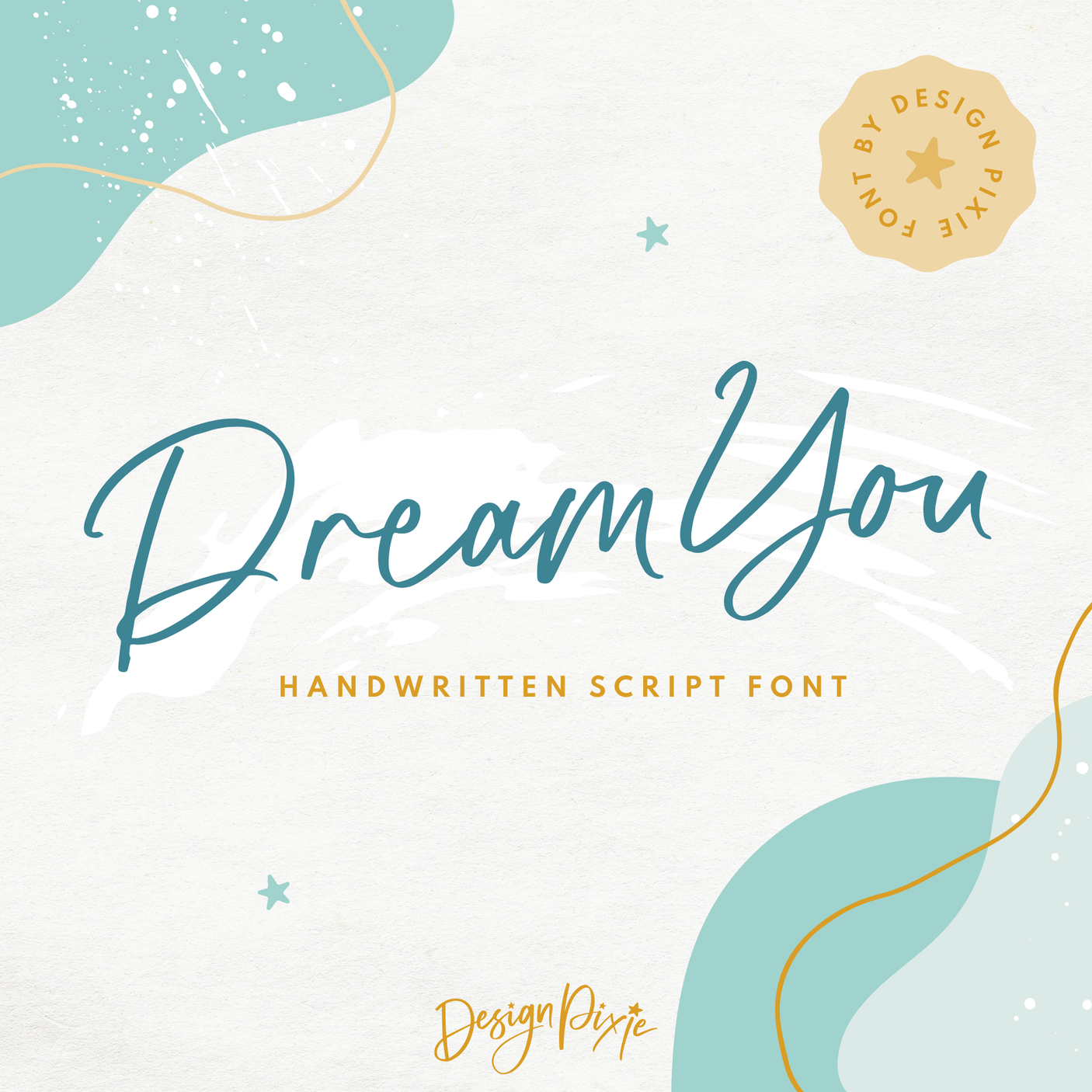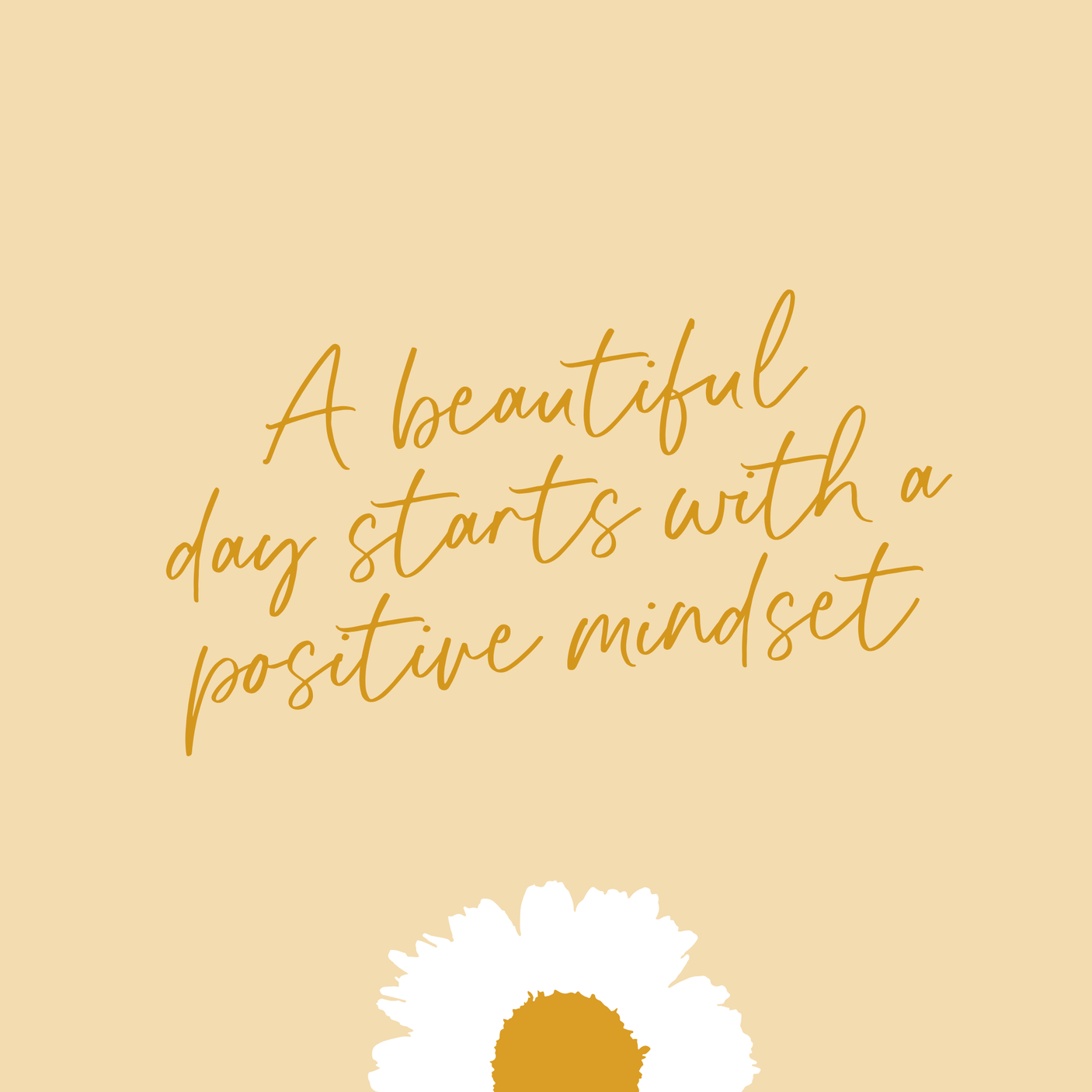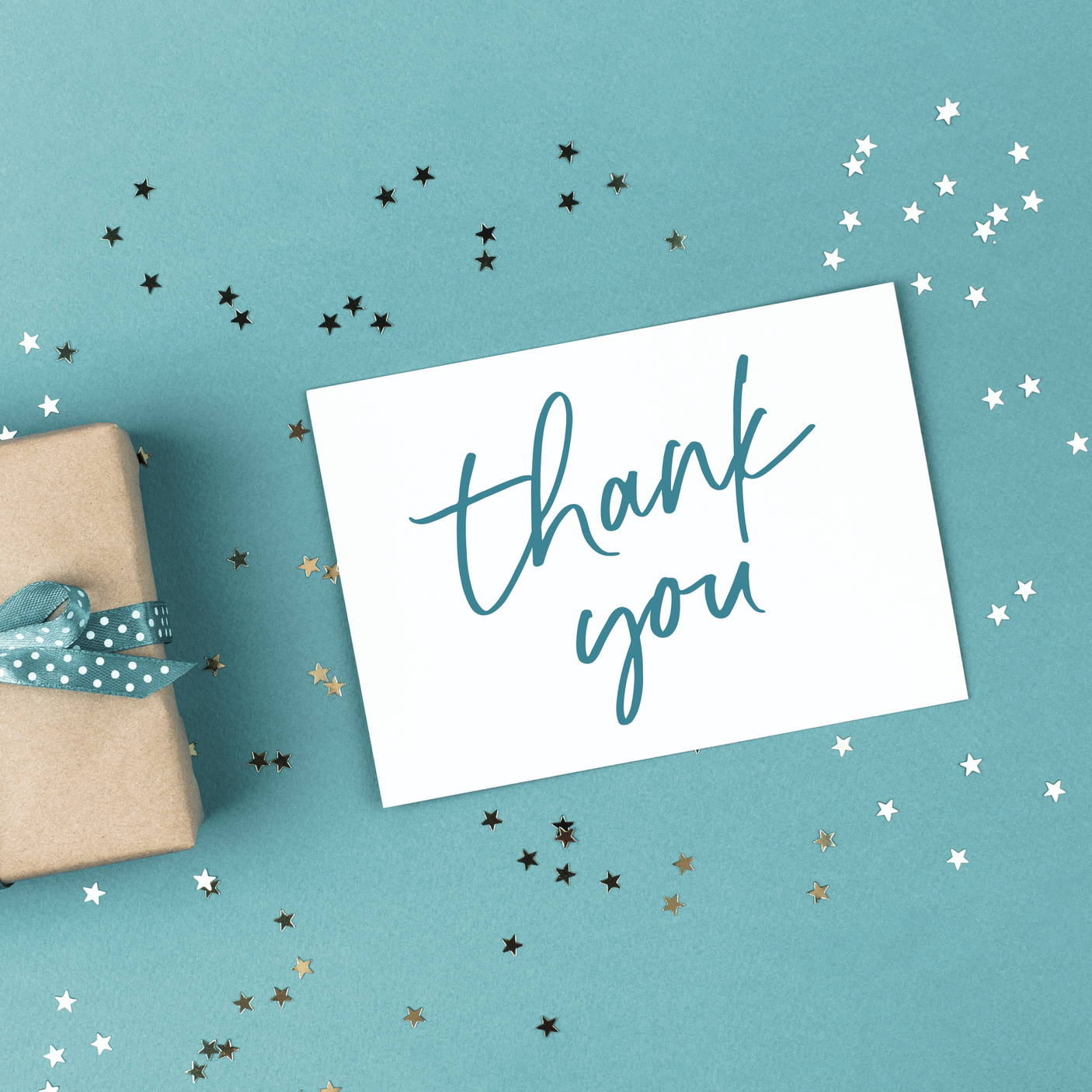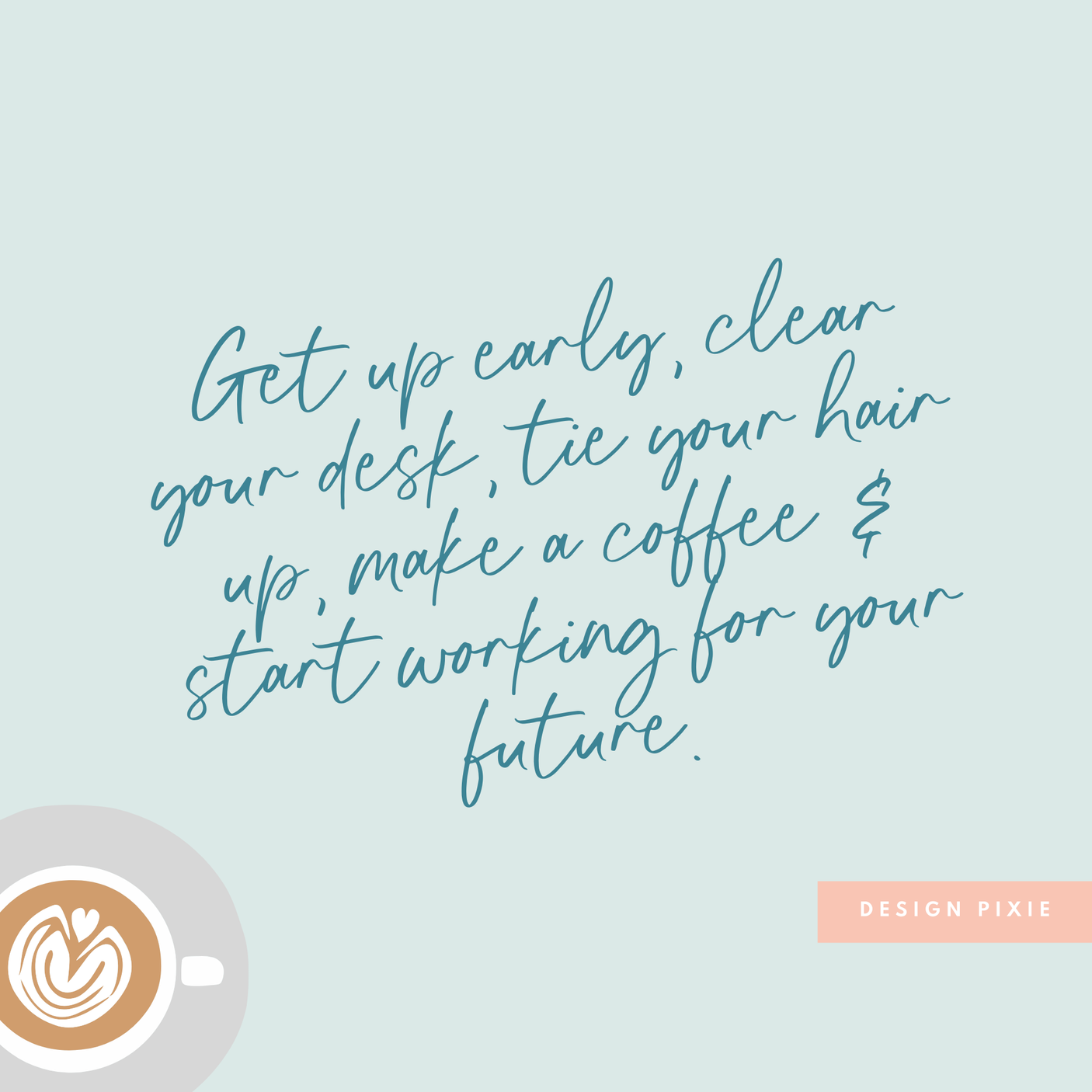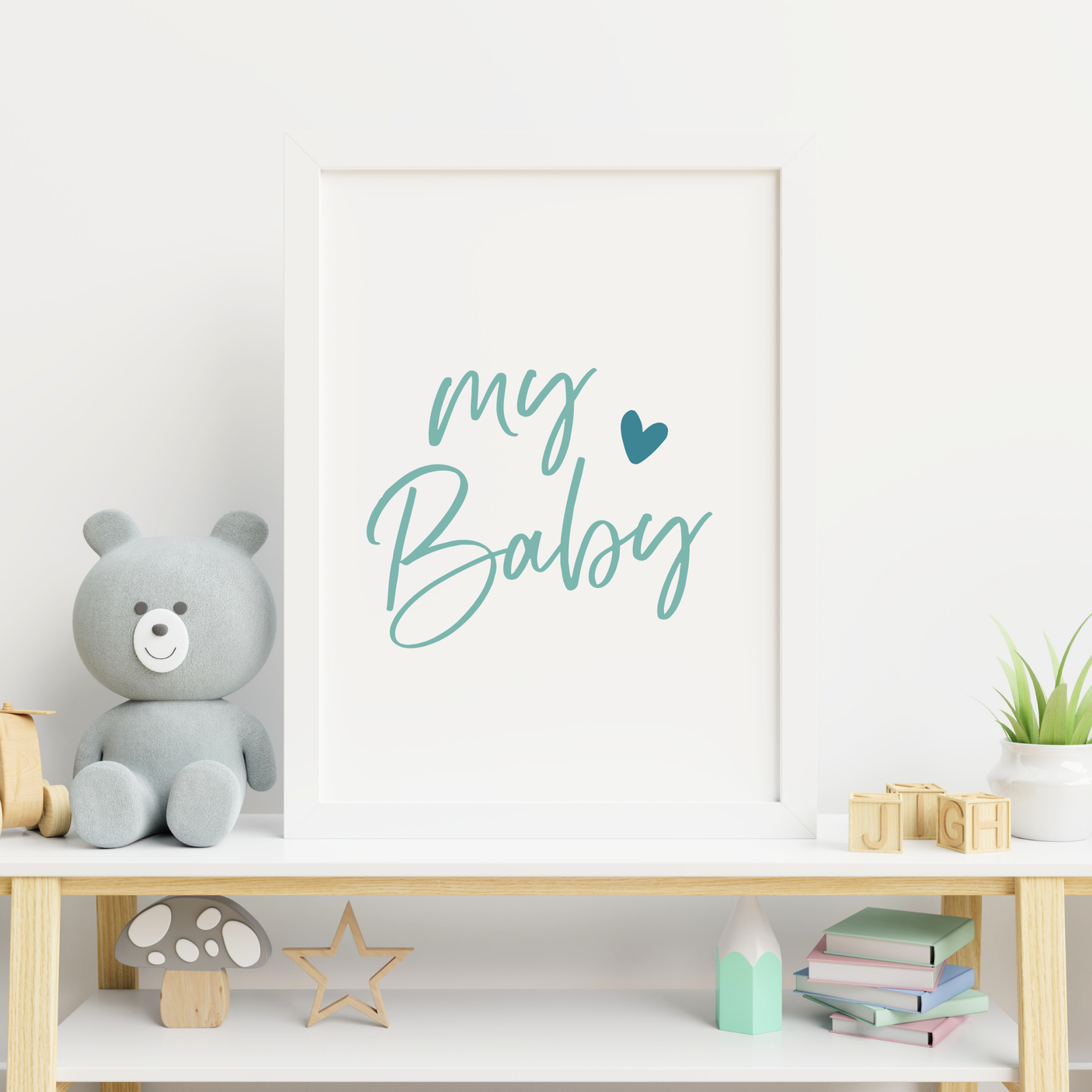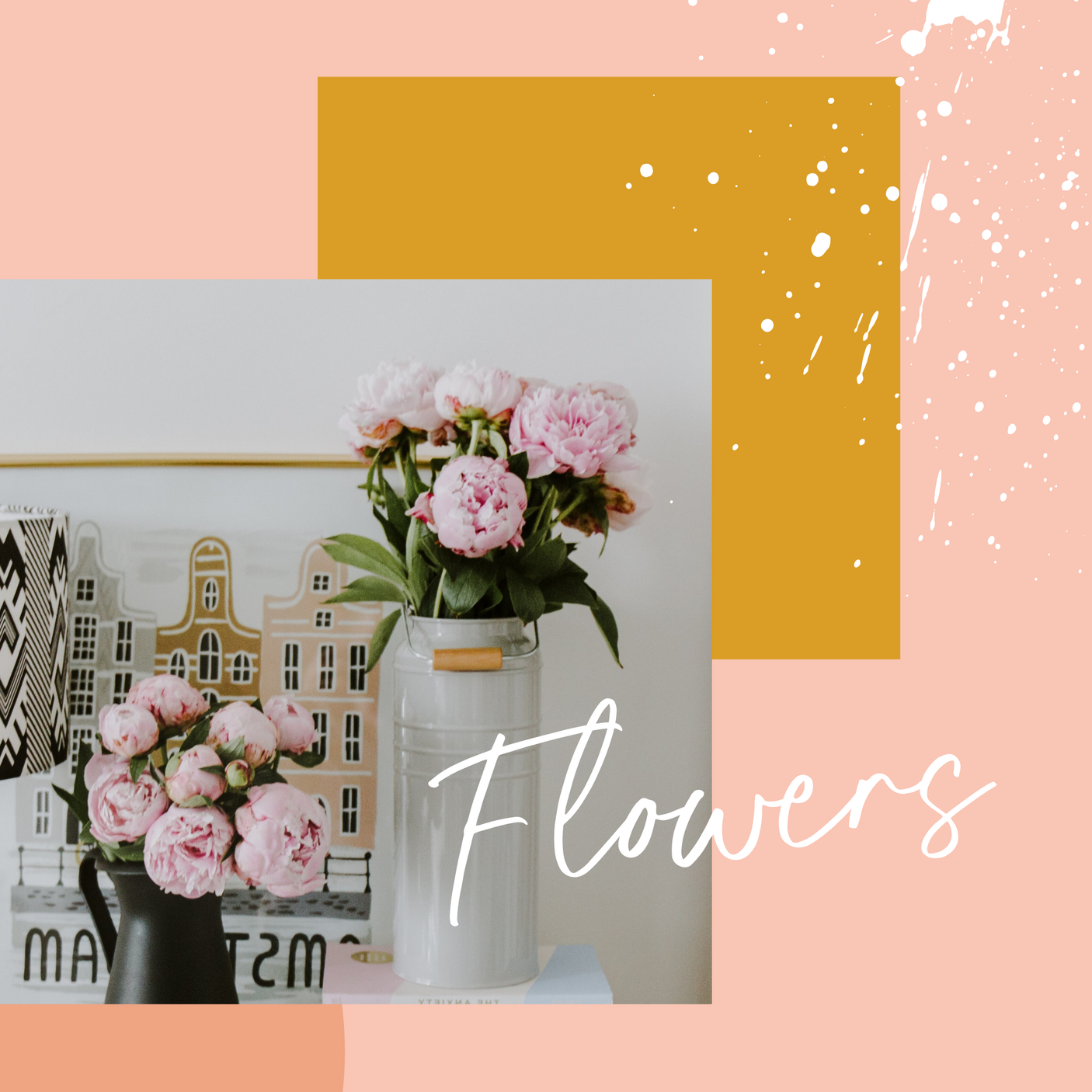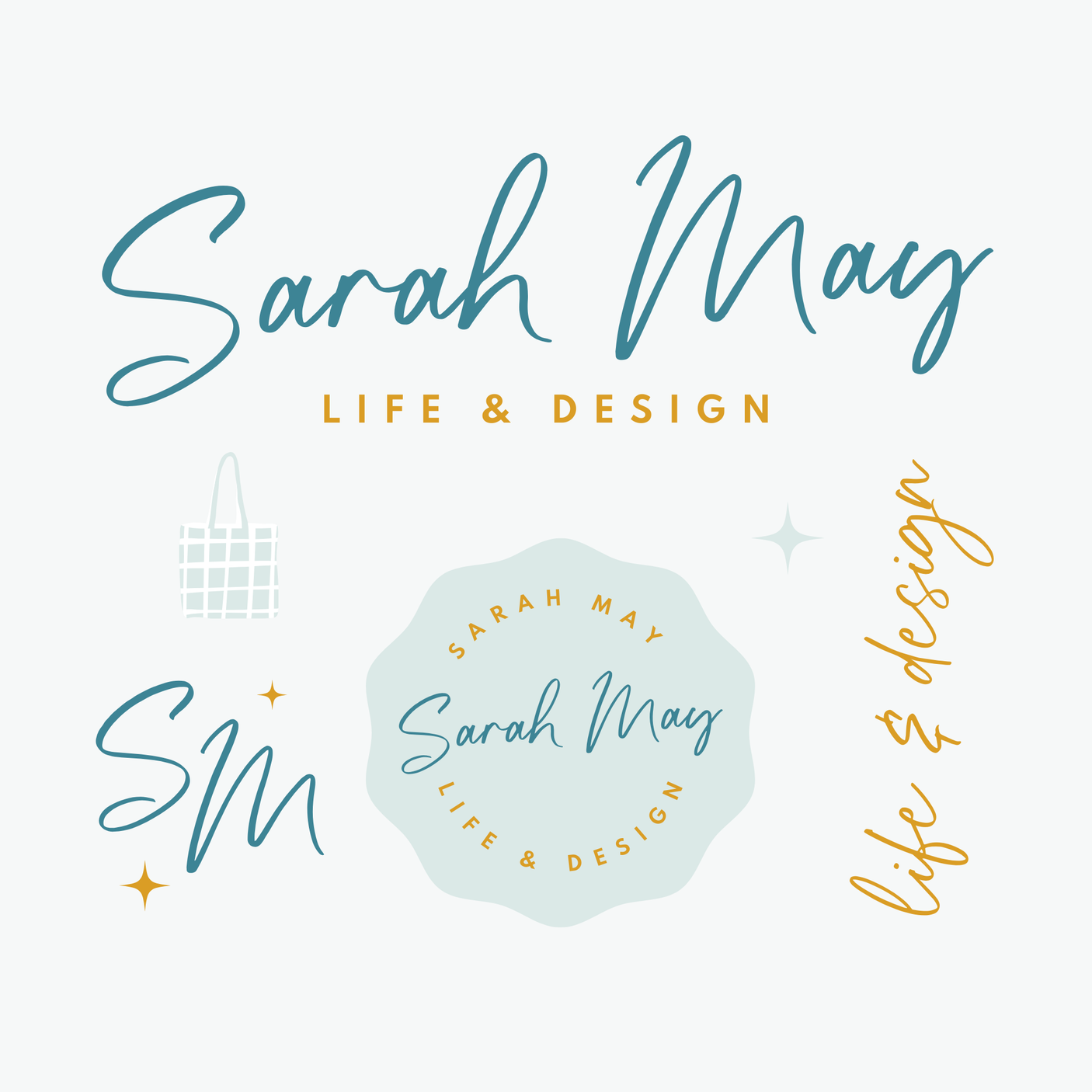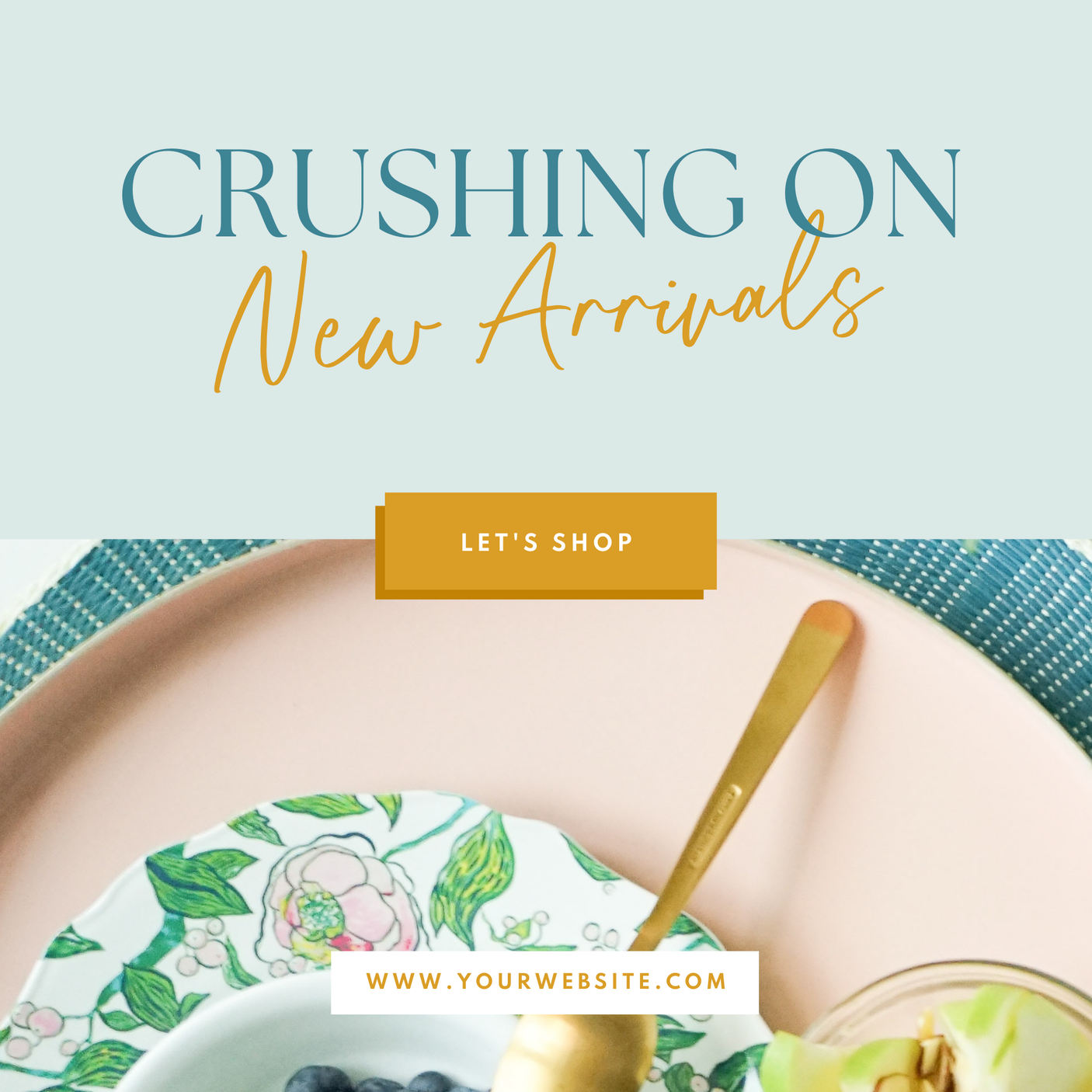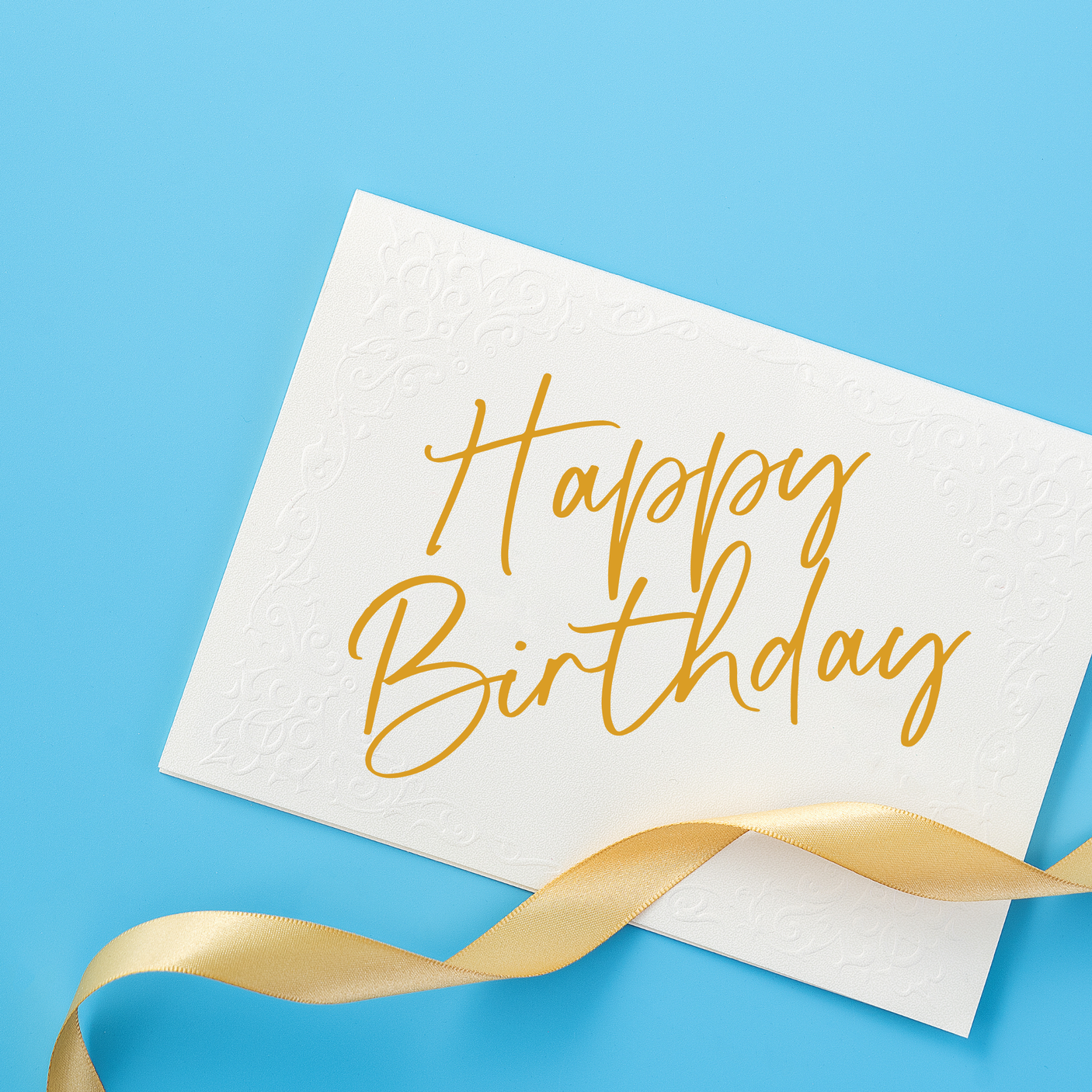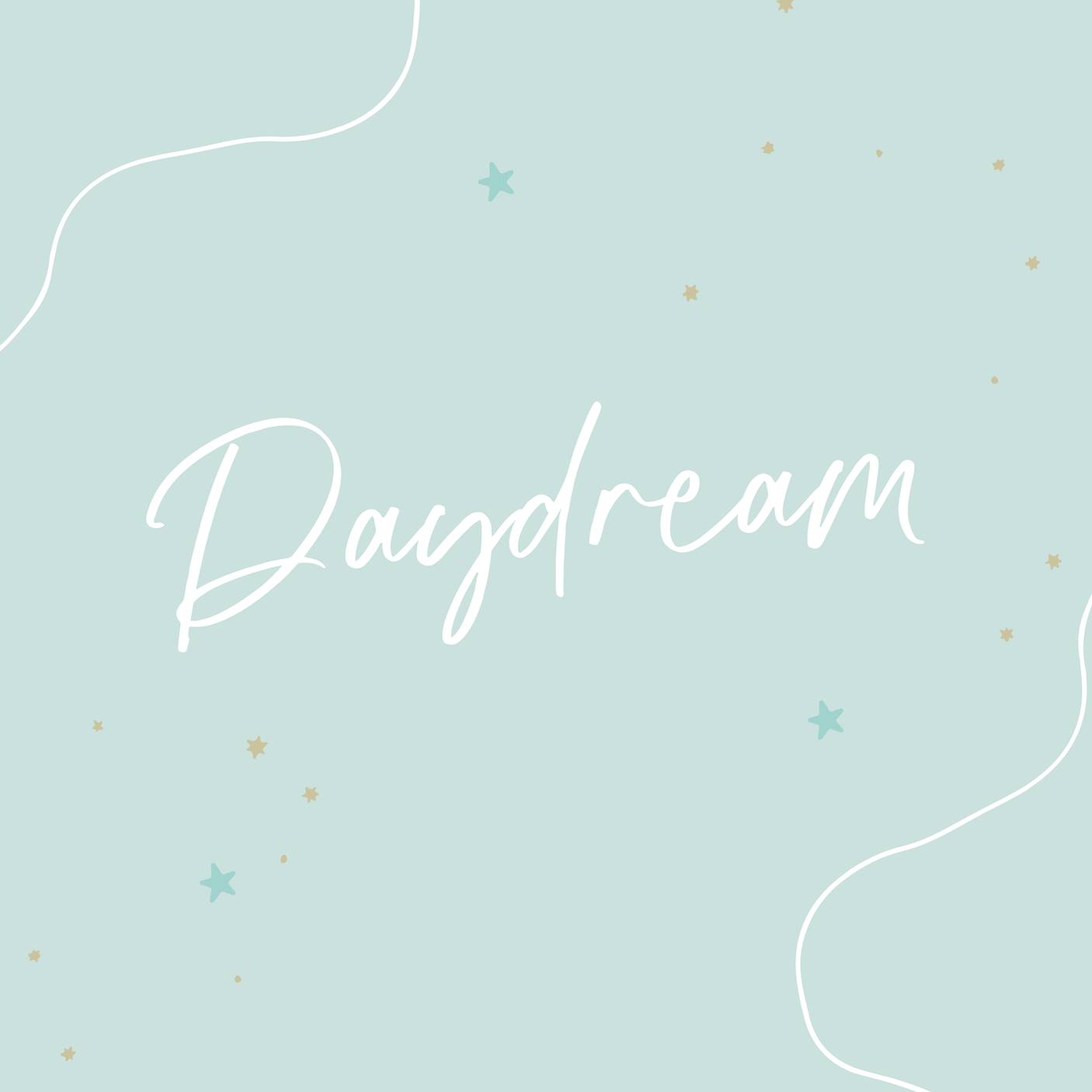
Dream You Font
Meet Dream You, your new go-to handwritten script font that feels like it was written with a smooth marker pen. With its modern, casual strokes and natural flow, Dream You adds a personal touch to everything you create.
Perfect for:
- Handwritten accents on your website
- Quotes for Instagram or Pinterest
- Greeting cards & invitations
- Logos & branding projects
- Labels, stickers & small business designs
Why you’ll love it:
Dream You strikes the perfect balance between stylish and effortless, making it super versatile. It’s playful without being messy, clean without being stiff - like your bestie’s handwriting, but leveled up for design magic.